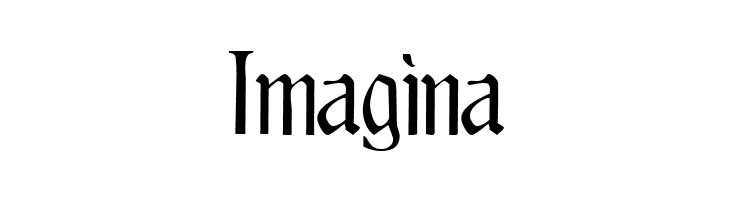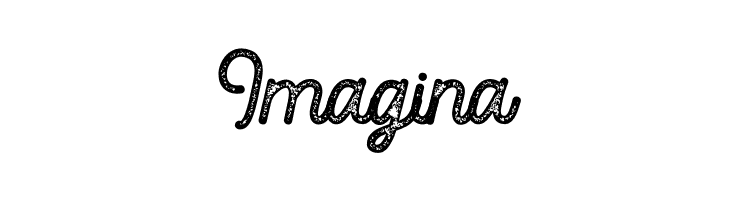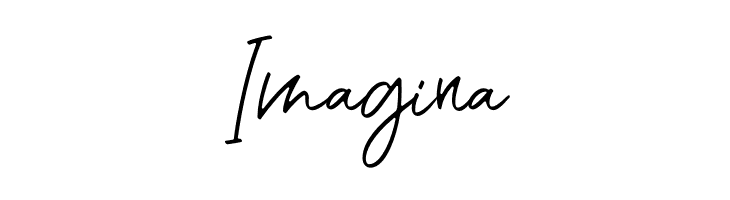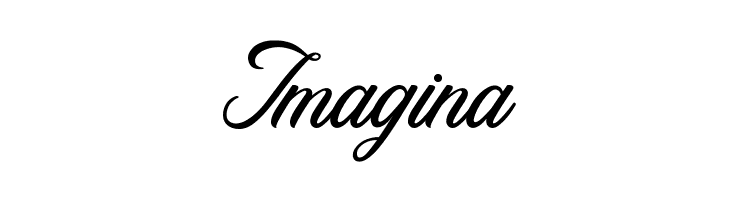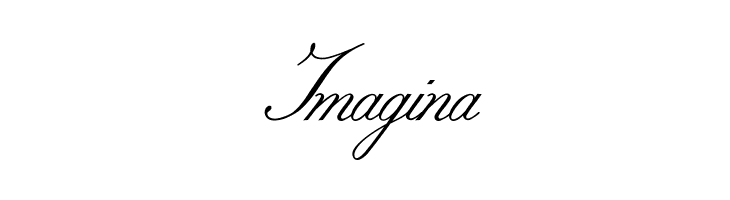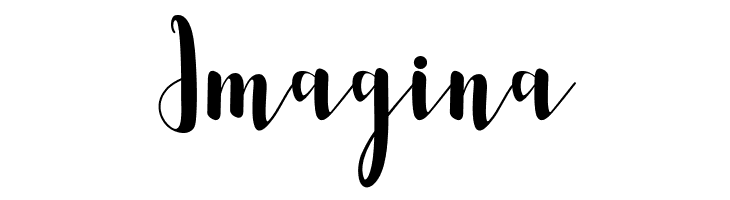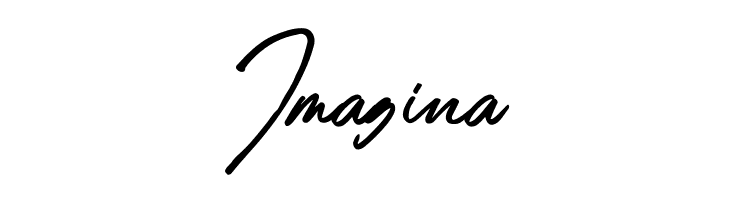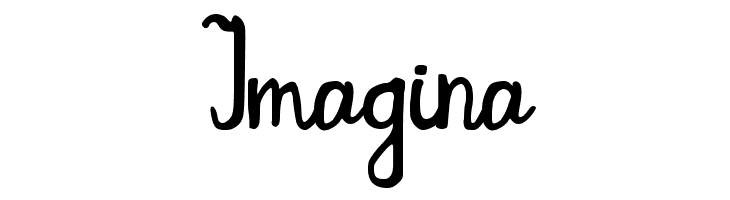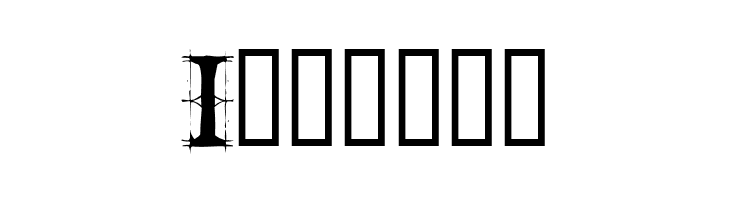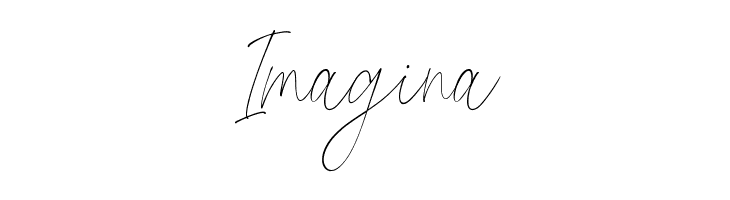
A dynamic and elegant script font with fluid strokes and a cursive style.
A sleek, modern cursive font with smooth, flowing lines and slightly slanted characters.
A smooth, flowing script font with connected letters and uniform strokes.
A lively and flowing script font with smooth, continuous strokes.
An elegant, italic script font with flowing, cursive characters.
A romantic script font with elegant, flowing cursive strokes.
An elegant and sophisticated cursive script font with flowing curves and delicate loops.
A textured script font with a vintage, stamped appearance.
An elegant, flowing script font with artistic loops and swirls.
A dynamic and elegant script font with flowing, cursive letterforms.
A flowing, cursive script font with elegant, sweeping curves.
An elegant script font with flowing, interconnected letters and high contrast strokes.
An elegant, flowing script font with a classic, sophisticated style.
An elegant script font with flowing, cursive lines and decorative swirls.
A graceful script font with elegant loops and modern calligraphic style.
A sophisticated script font with flowing, interconnected letters and ornate uppercase characters.
A graceful and elegant script font with flowing, connected letters.
An elegant and flowing script font with graceful curves and loops.
A bold, vintage brush script with a distressed texture.
An elegant script font with flowing, cursive letters and intricate swashes.
An elegant script font with flowing, interconnected letters and ornate details.
A dynamic script font with a rough, brush-like texture and flowing cursive style.
A dynamic script font with rough, textured strokes and a handwritten feel.
An intricate, blueprint-inspired font with detailed, decorative elements.
Elegant, handwritten script with thin, flowing strokes.
A fluid and elegant script font with dynamic strokes and interconnected letters.